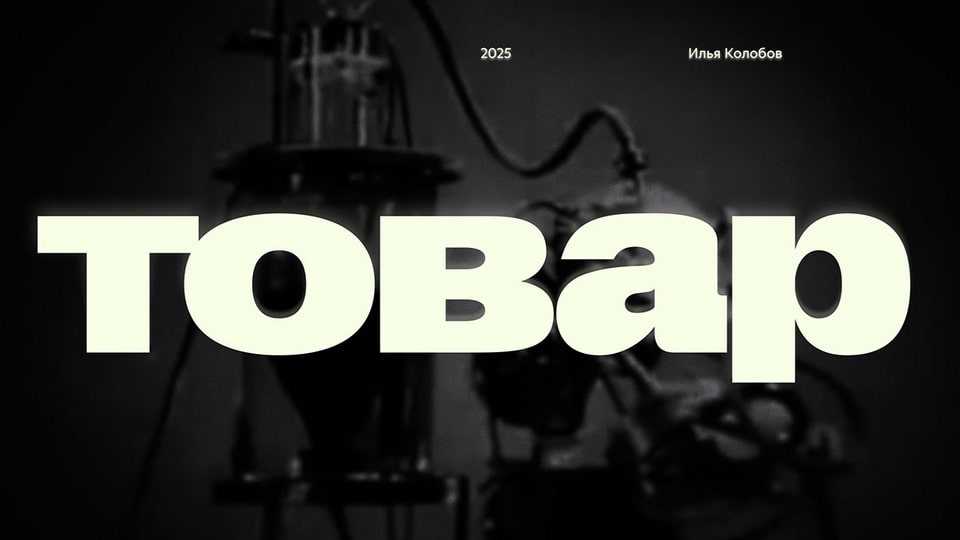
Download Tovar font, a bold and uncompromising sans-serif typeface that captures the spirit of industrial modernism with its massive letterforms and strong geometric structure.
Designer: Ilya Kolobov